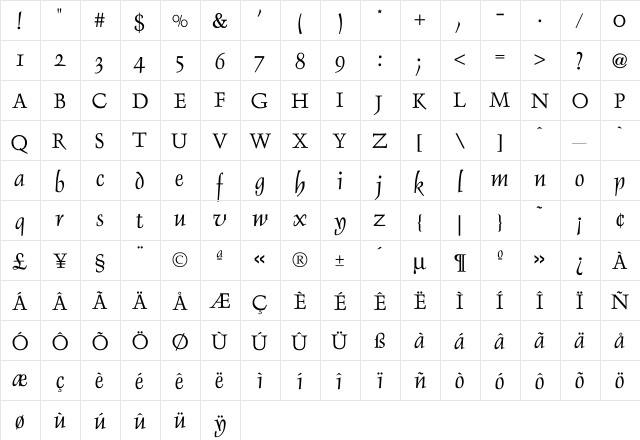
Dauphin-Normal Regular
Design Context for Dauphin-Normal Typeface
Dauphin-Normal offers clean, dependable letterforms without strong stylistic allegiance, making it a practical choice for designers who need flexibility.